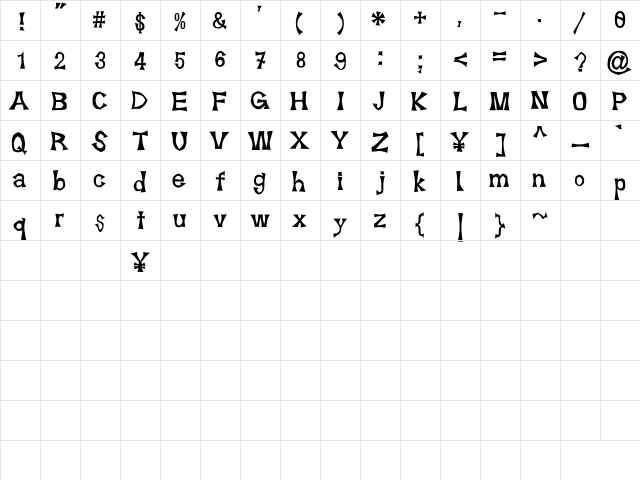
Suehirogari Regular
Design Context for Suehirogari Typeface
Suehirogari is a composed and adaptable typeface that performs quietly and consistently across a wide range of design contexts.
Pro Tip: Use Suehirogari in both headline and body roles to test its range before committing to a single application.